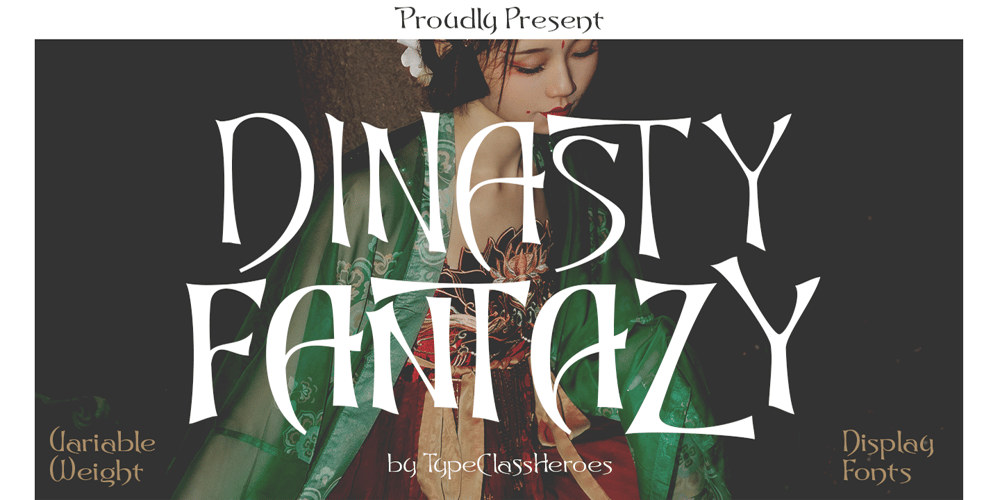
Dynasty Fantasy Font Family was designed by Pande Made and published by TypeClassHeroes. Dynasty Fantasy contains 18 styles and family package options. Dynasty Fantasy is a new display font inspired by the empire era come with variable which will bring your project a strong and powerful touch. Browse through all the previews and get as inspired as I was when creating this font.Dynasty Fantasy support for languages such as: Danish, English, Finnish, French, German, , Norwegian , Portuguese, Spanish, Swedish. In variable version, it allows multiple options when designing, adapting to different composition solutions. use this font for any branding, product packaging, invitation, quotes, t-shirt, label, poster, logo etc.Feature Uppercase & Lowercase Number & Symbol International Glyphs Multilingual support Alternative Ligatures Feel free to drop us a message any time and follow my shop for upcoming updates